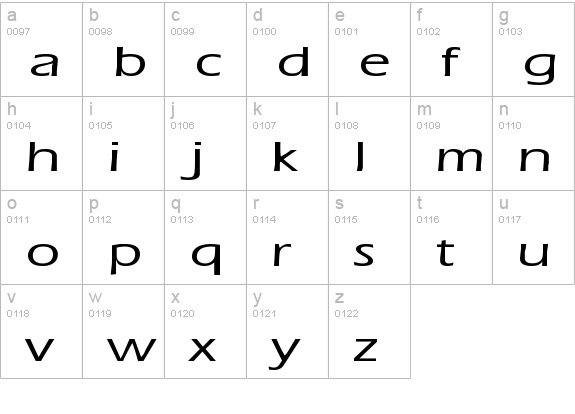
Eric Extended Normal is the standard, neutral, extended-width variant in the Eric typeface family \xE2\x80\x94 well suited to general body text, paragraphs, and standard typographic work.
The Eric Extended Normal font is a sleek and modern typeface designed to make your text pop with style. With its clean lines and balanced proportions, this font is perfect for a wide range of design projects, from branding to editorial layouts. The Eric Extended Normal font exudes a sense of confidence and sophistication, making it an ideal choice for anyone looking to elevate their design game. The best part? This fantastic font is available for free download at FontsMarket.com. So whether you're a seasoned designer or just starting out, you can easily access the Eric Extended Normal font to add a touch of elegance to your projects. Don't miss out on this opportunity to enhance your designs with this versatile and eye-catching typeface.